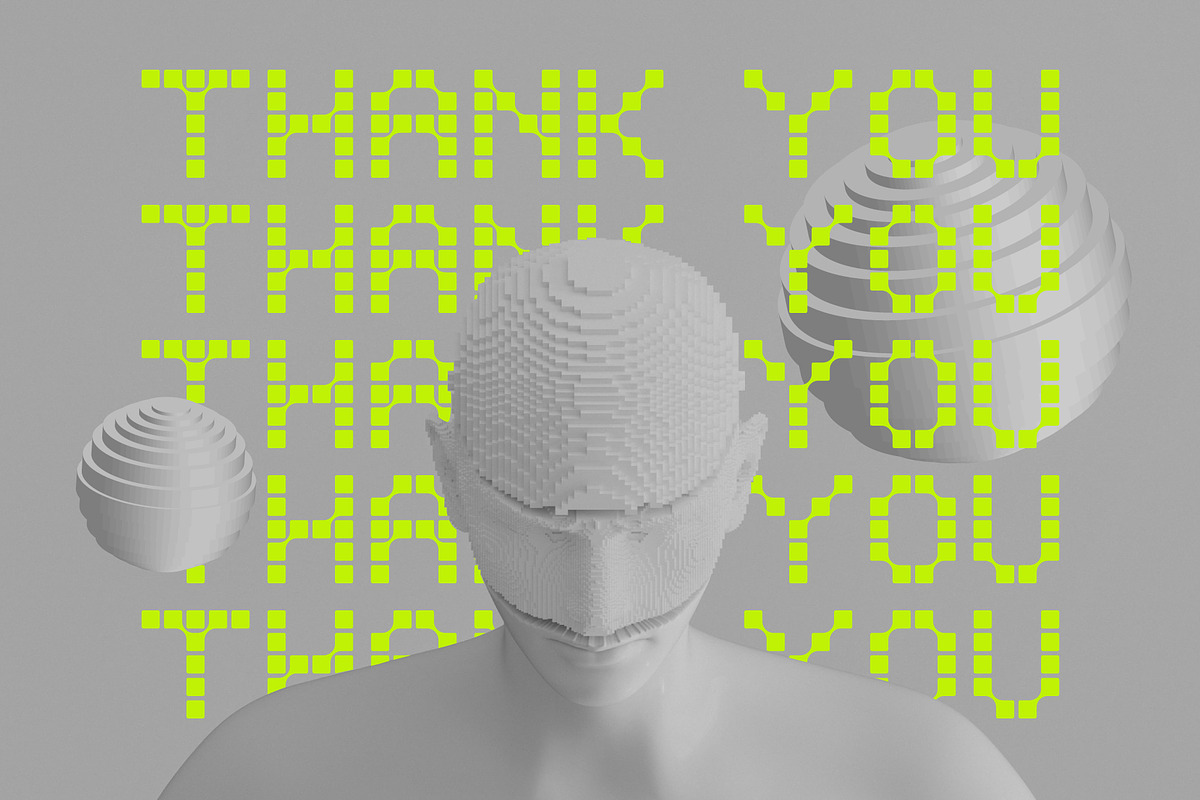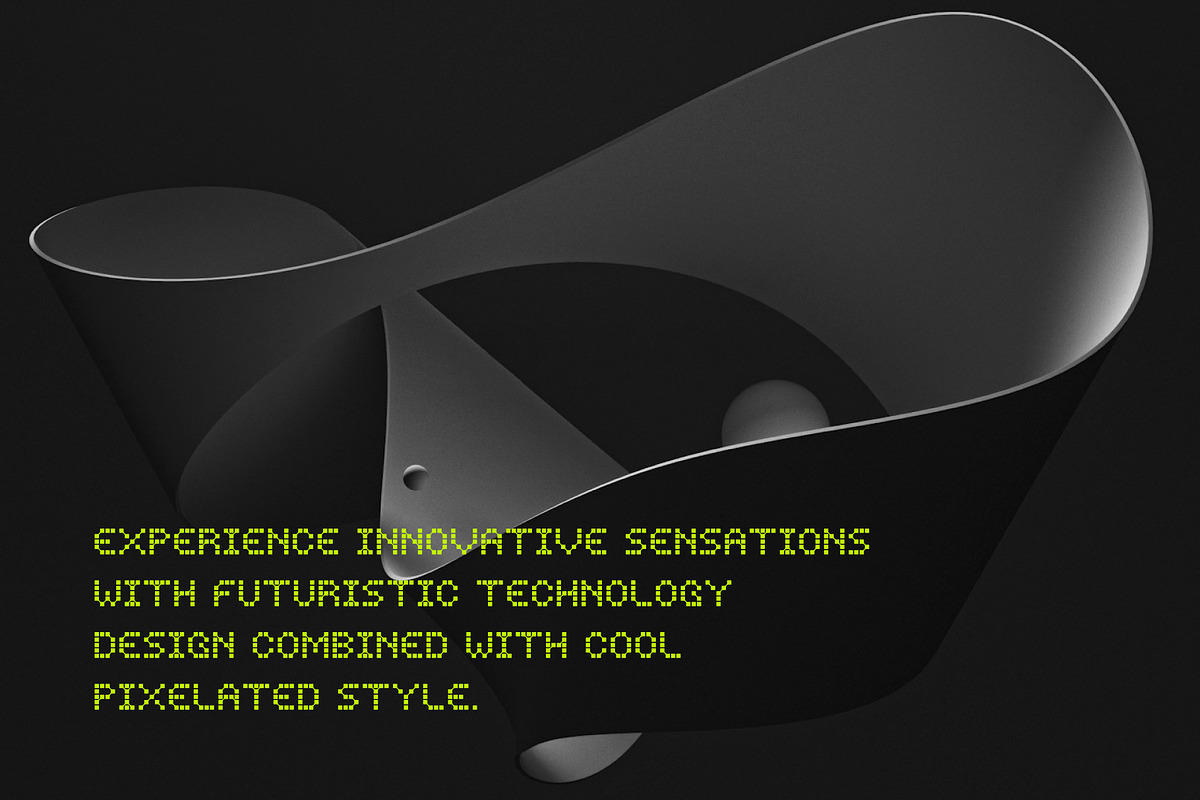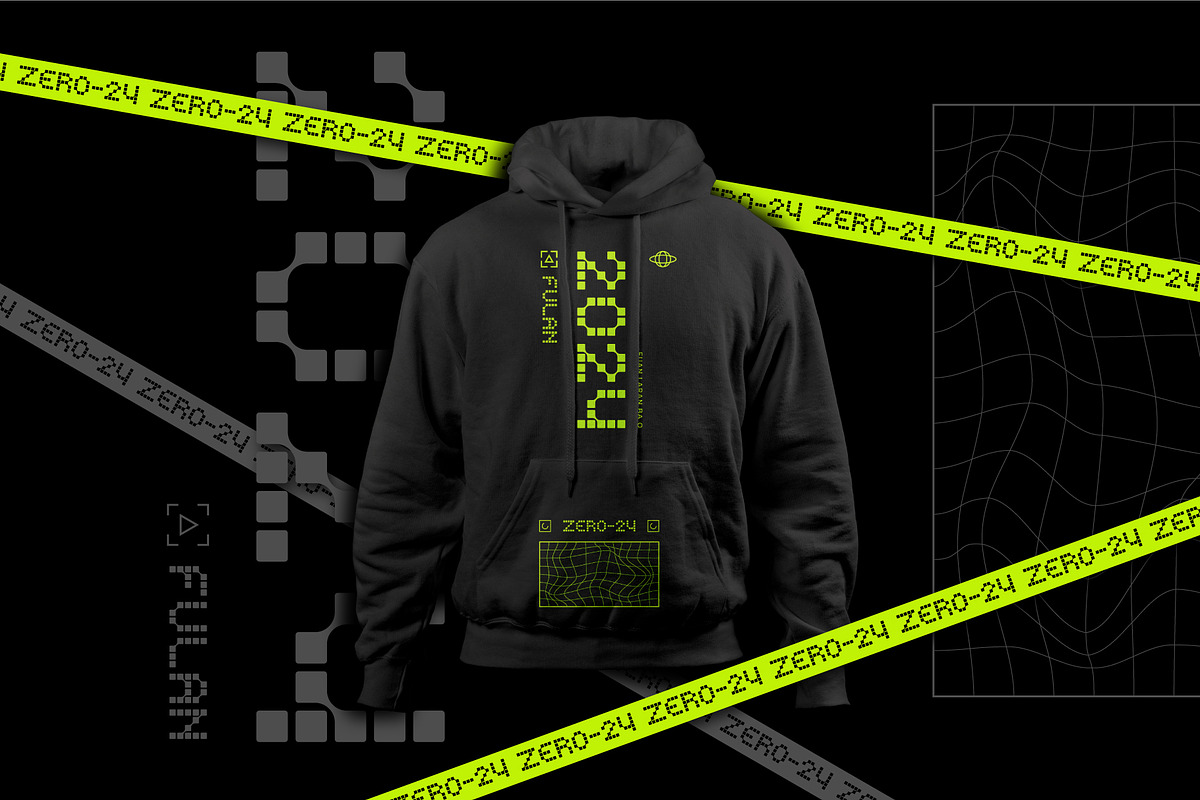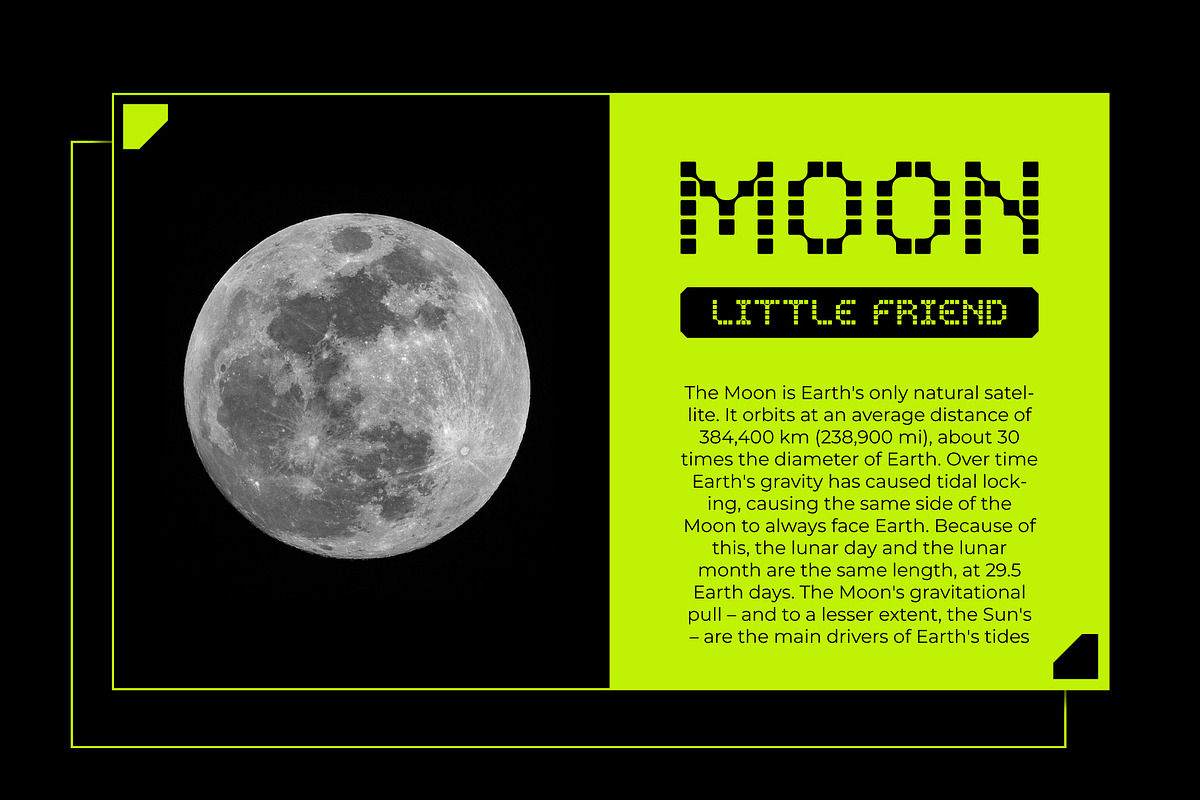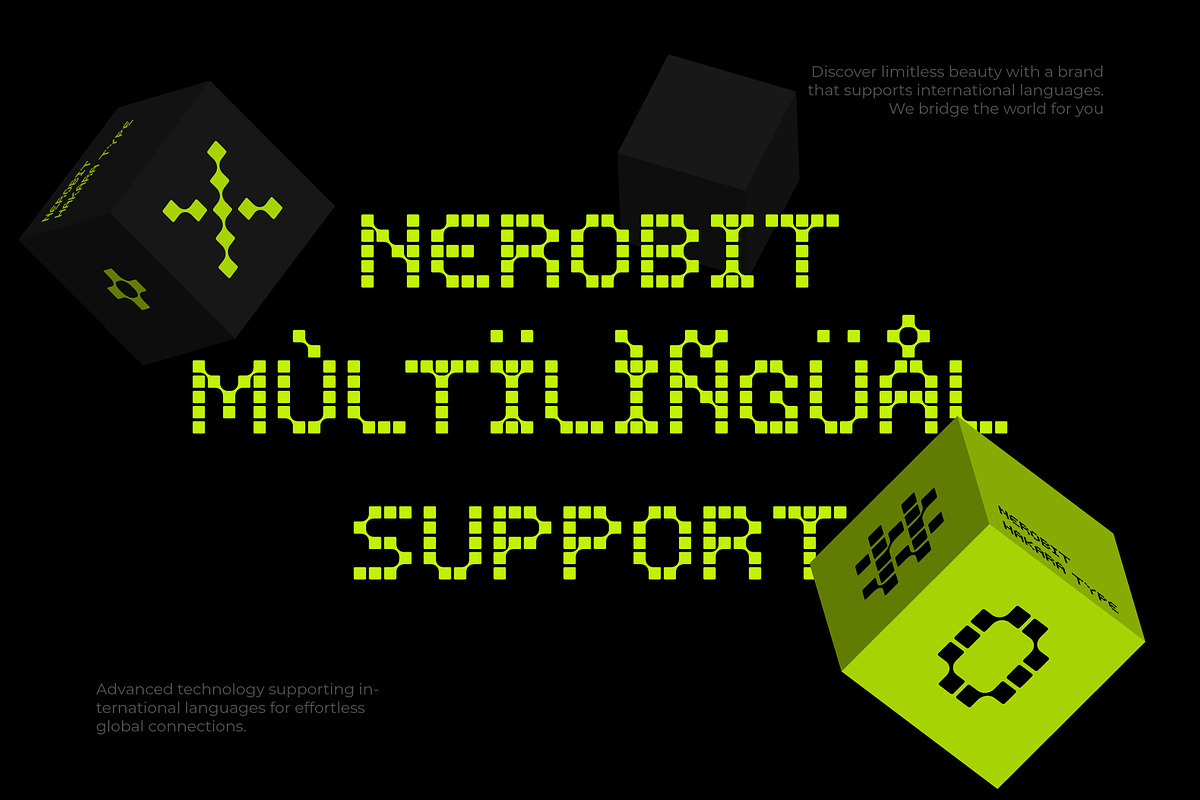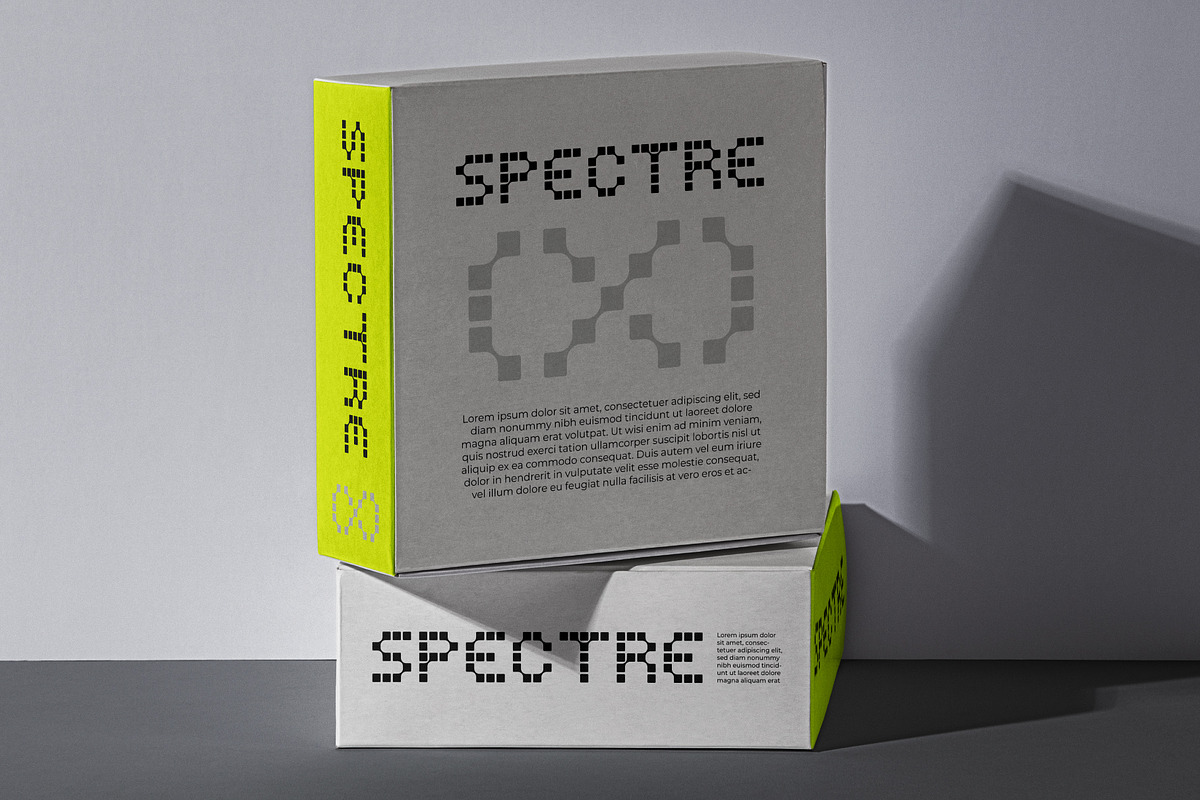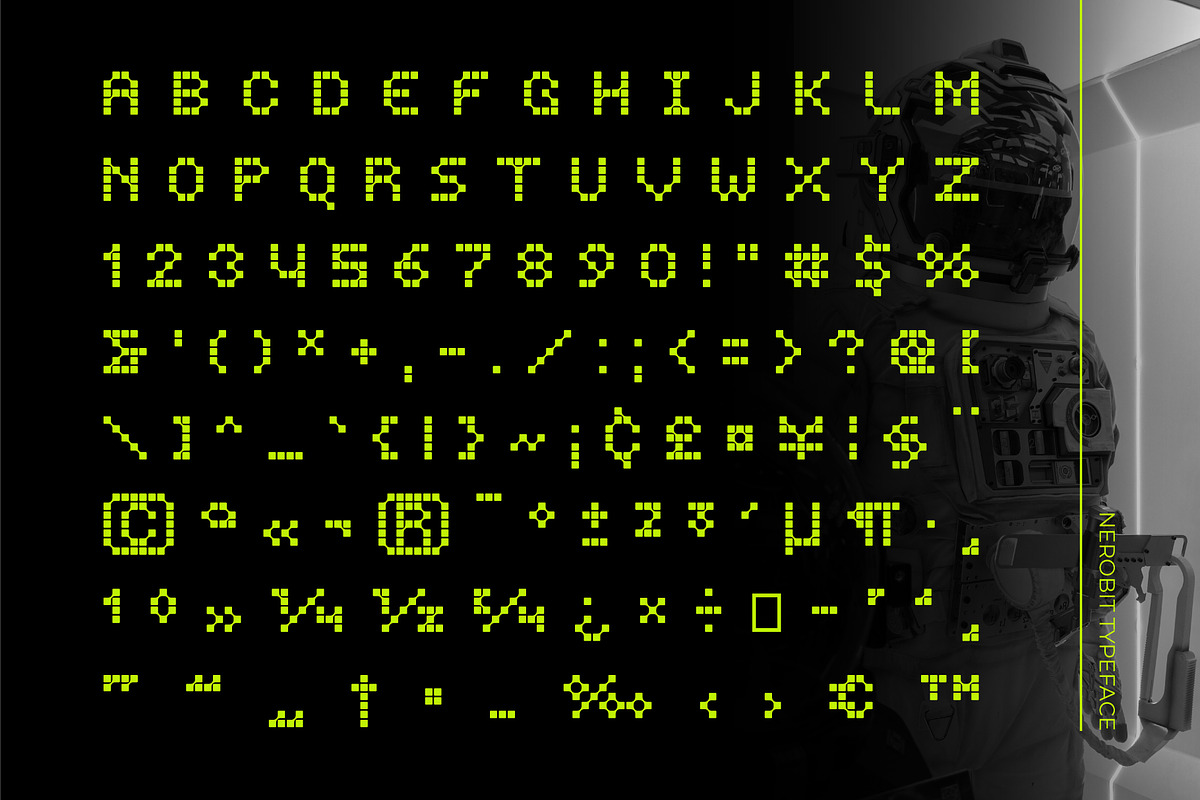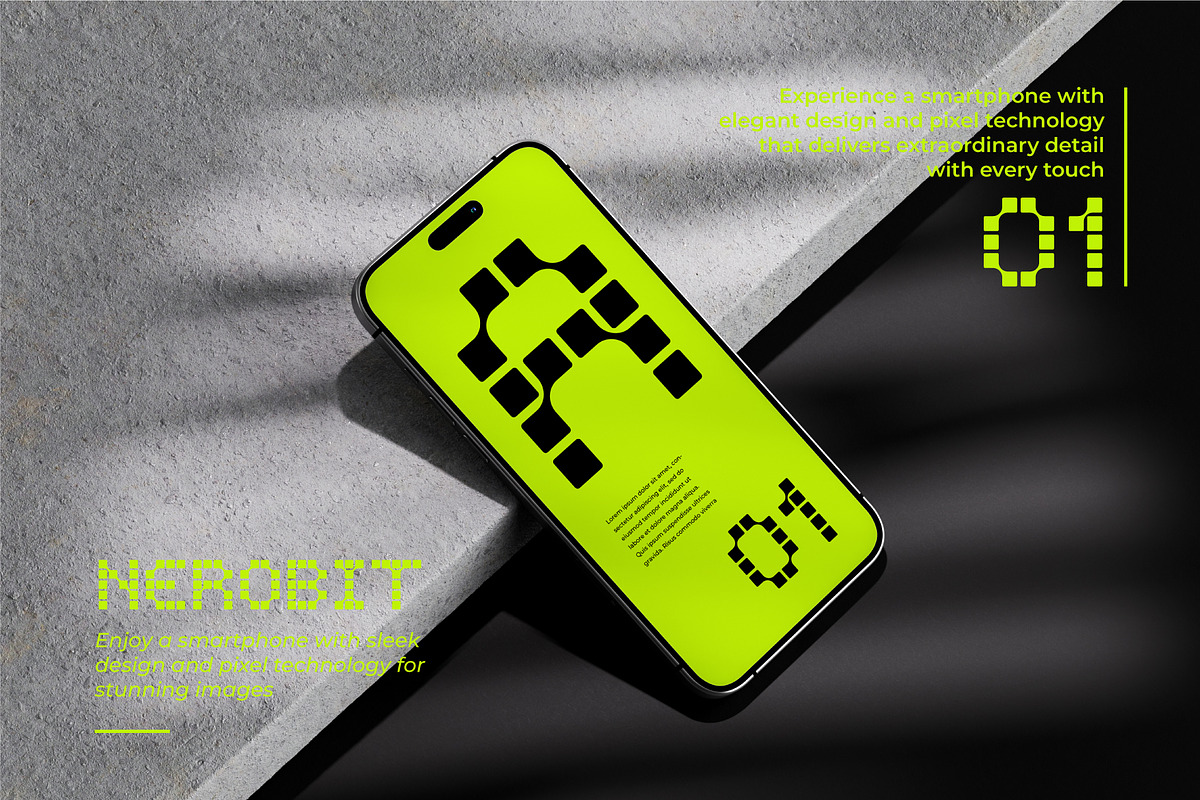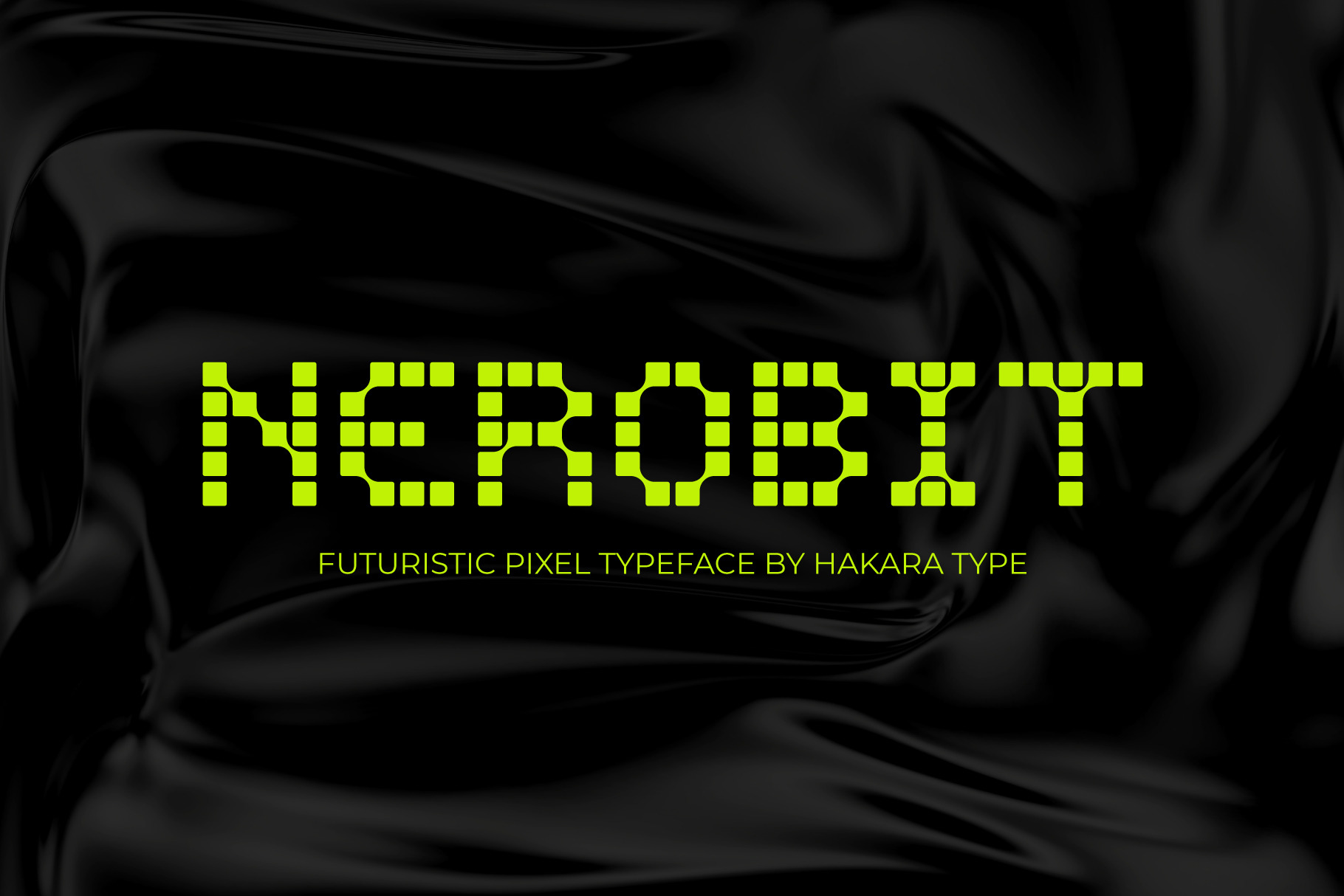
Nerobit - Pixel Typeface
Nerobit is a pixel display font that brings a futuristic touch to your designs. With a clean and precise arrangement of interconnected pixels, Nerobit adds a modern and cutting-edge feel to every visual project. Transform text into stunning and unique art with Nerobit, the perfect choice for innovative digital displays.
Nerobit comes with uppercase, lowercase, numbers, function, and included multilingual support.